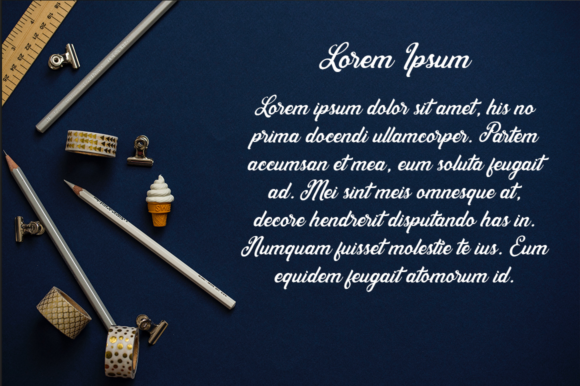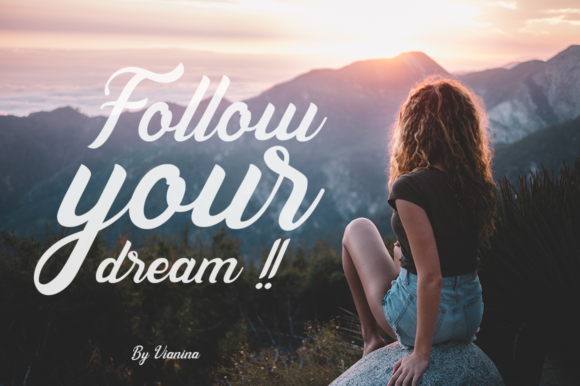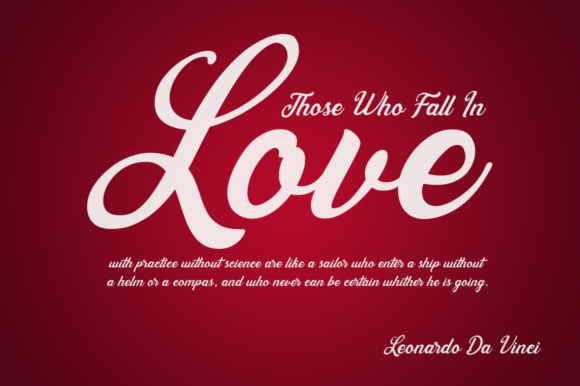
Introduction to Lorea Font
Have you ever been in the midst of a creative project, searching for the perfect font to give your design that extra oomph? The hours tick by as you scroll through endless options, trying to find the one that captures the essence of your vision. For many designers, this is a familiar frustration – until now. Enter the Lorea Font, a modern calligraphy style that’s as versatile as it is beautiful.
With its clean touch and elegant curves, the Lorea Font is the perfect addition to any design project. Whether you’re working on a wedding invitation, a fashion magazine, or a logo, this font is sure to elevate your work. And the best part? It’s free to download, making it an invaluable resource for designers on a budget.
What sets the Lorea Font apart from other design resources is its high-quality, transparent background, making it perfect for use on social media, stationary, and even watermark photography. With the Lorea Font, you’ll never have to worry about sacrificing style for functionality – it’s the ultimate design solution for any creative project.
Key Features of Lorea Font
- Unique characteristics include a modern and minimalist design aesthetic, making it perfect for a wide range of creative projects, from logos to typography-based designs.
Honest Review: Lorea Font
I recently stumbled upon the Lorea Font and was immediately drawn to its sleek and modern design. As a designer, I’m always on the lookout for high-quality design resources to elevate my creative projects.
- ✨ Elegant and modern design aesthetic
- ✨ Highly versatile and suitable for a range of creative projects
- ⚠️ Limited character set, which may not be suitable for projects requiring a wide range of characters
- ⚠️ Not ideal for projects requiring a bold or dramatic font style
Overall, I’m impressed with the Lorea Font. It’s a great addition to any designer’s toolkit, especially for projects requiring a clean and modern aesthetic. While it may not be suitable for every project, it’s definitely worth considering for your next creative endeavor.
Tips for Getting the Most Out of Lorea Font
Use the Lorea Font on a transparent background to create a creative project with a modern look. Experiment with different font sizes and styles to add visual interest to your design. You can also pair the Lorea Font with other high-quality design resources to create a unique and eye-catching design.
The Lorea Font is ideal for use in creative projects, such as logo design, branding, and marketing materials. You can also use it in educational materials, such as presentations and infographics, to add a touch of professionalism and sophistication.